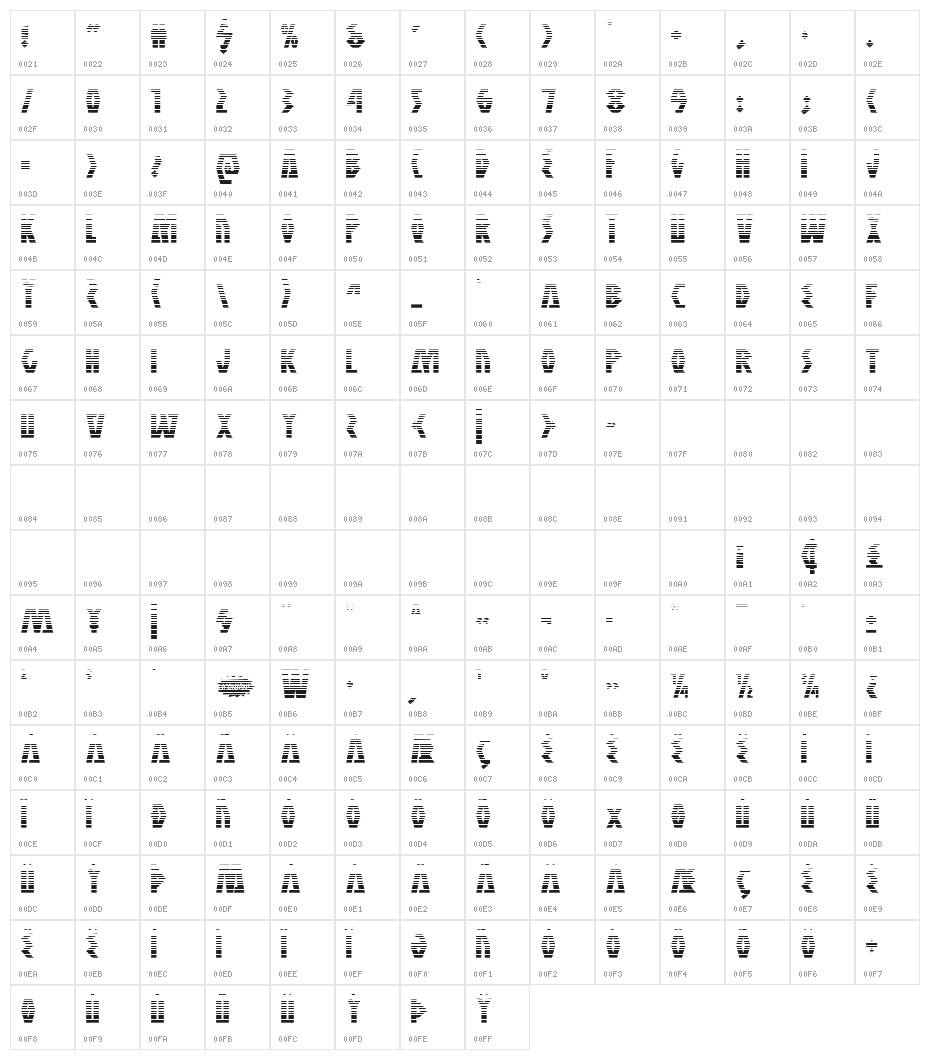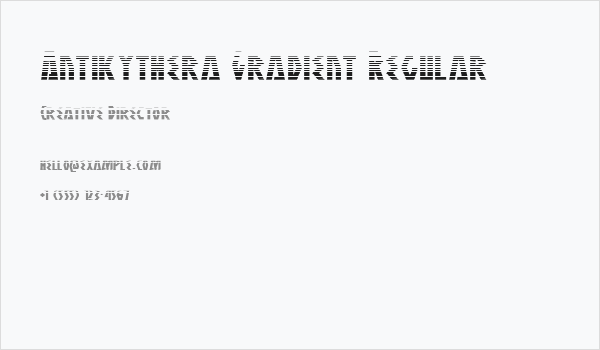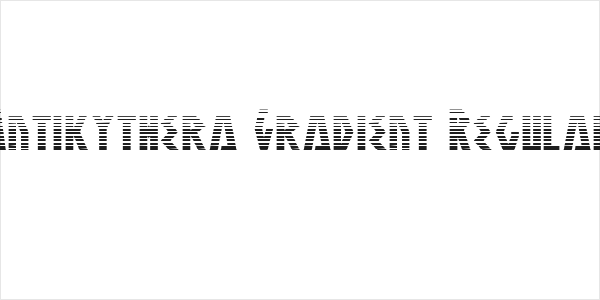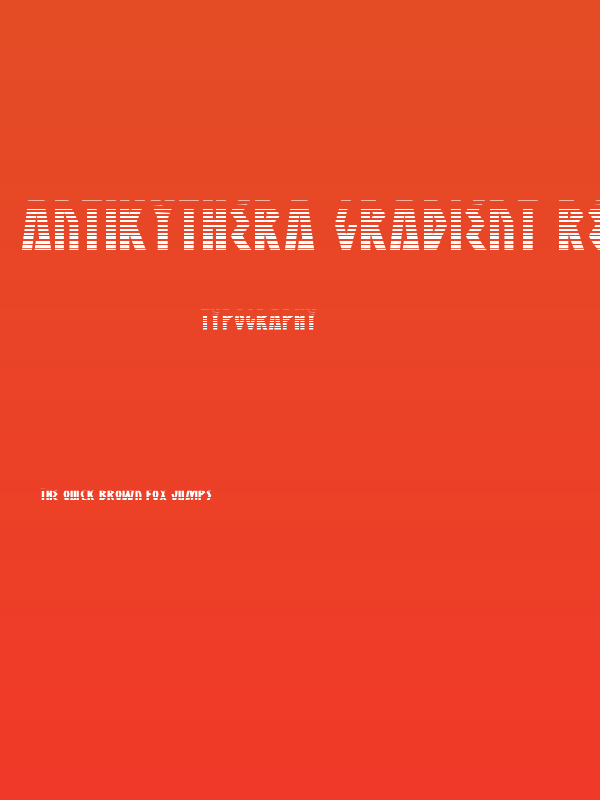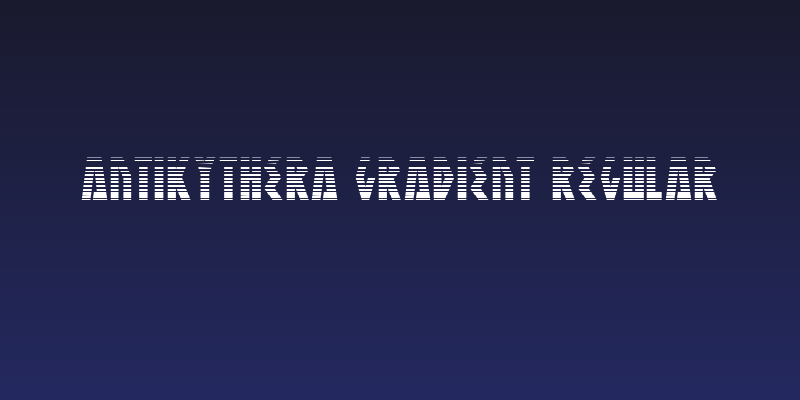
Antikythera Gradient Regular Font
Antikythera Gradient Regular Description
This font features a unique design characterized by horizontal gradient stripes that create a sense of movement and depth. The uppercase letters are bold and geometric, with sharp angles and a futuristic feel. The lowercase letters maintain the same style, offering consistency throughout. Numbers and special characters are designed with the same striped pattern, ensuring a cohesive look. The overall appearance is modern and eye-catching, making it suitable for projects that require a distinctive and dynamic typeface.
| Proposed Projects | Ideal for futuristic branding, tech-related designs, posters, and digital media where a striking visual impact is desired. |